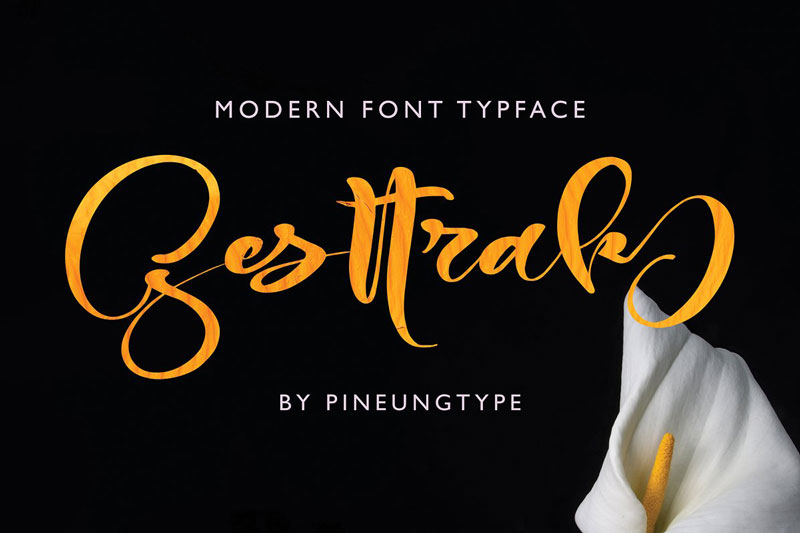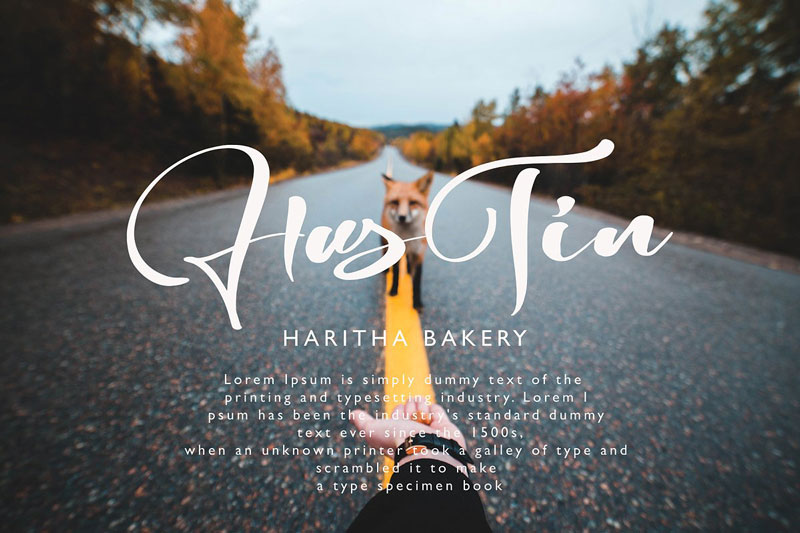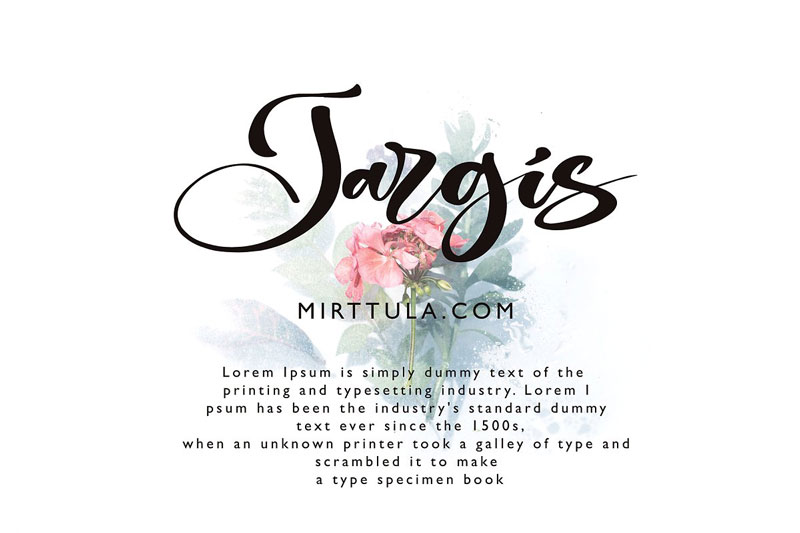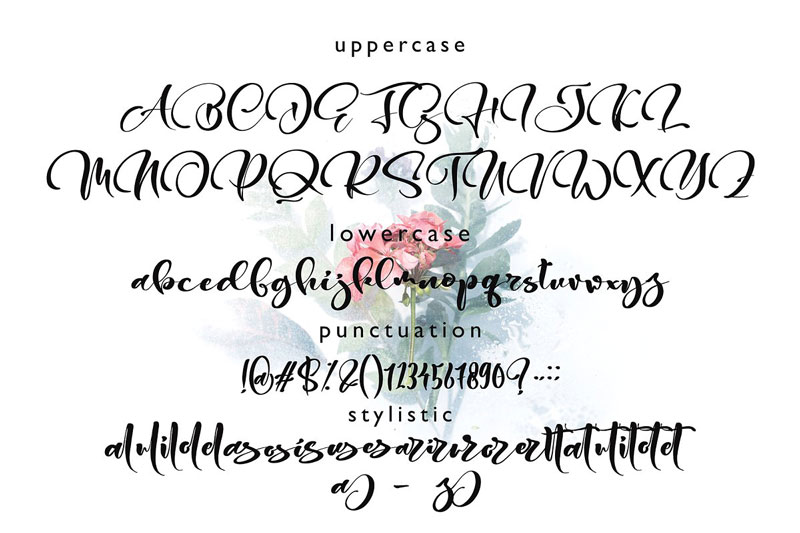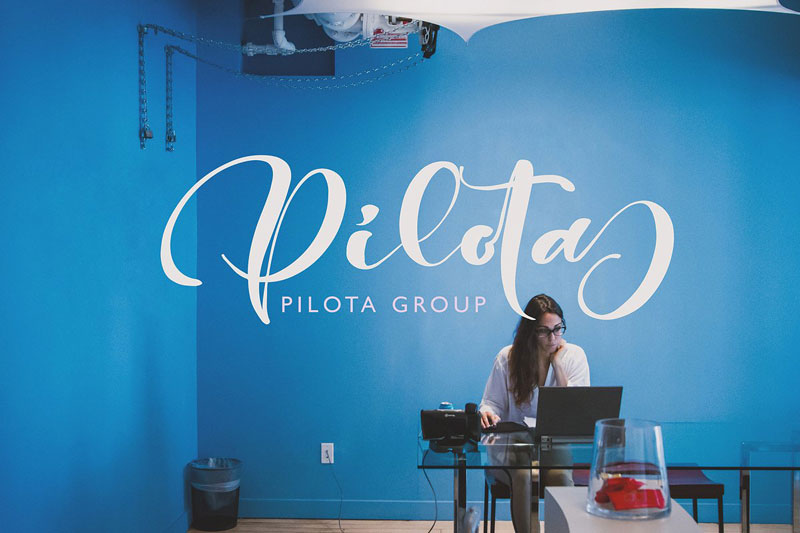
Gesttrak Stunning Script Fonts
Gesttrak handwritten font with a new style, this font will perfect for many different projects ex: quotes, logo, blog header, poster, banding, fashion, apparel, letter, invitation, stationery, etc. Also, check out Tonic – Luxurious Serif Typeface.